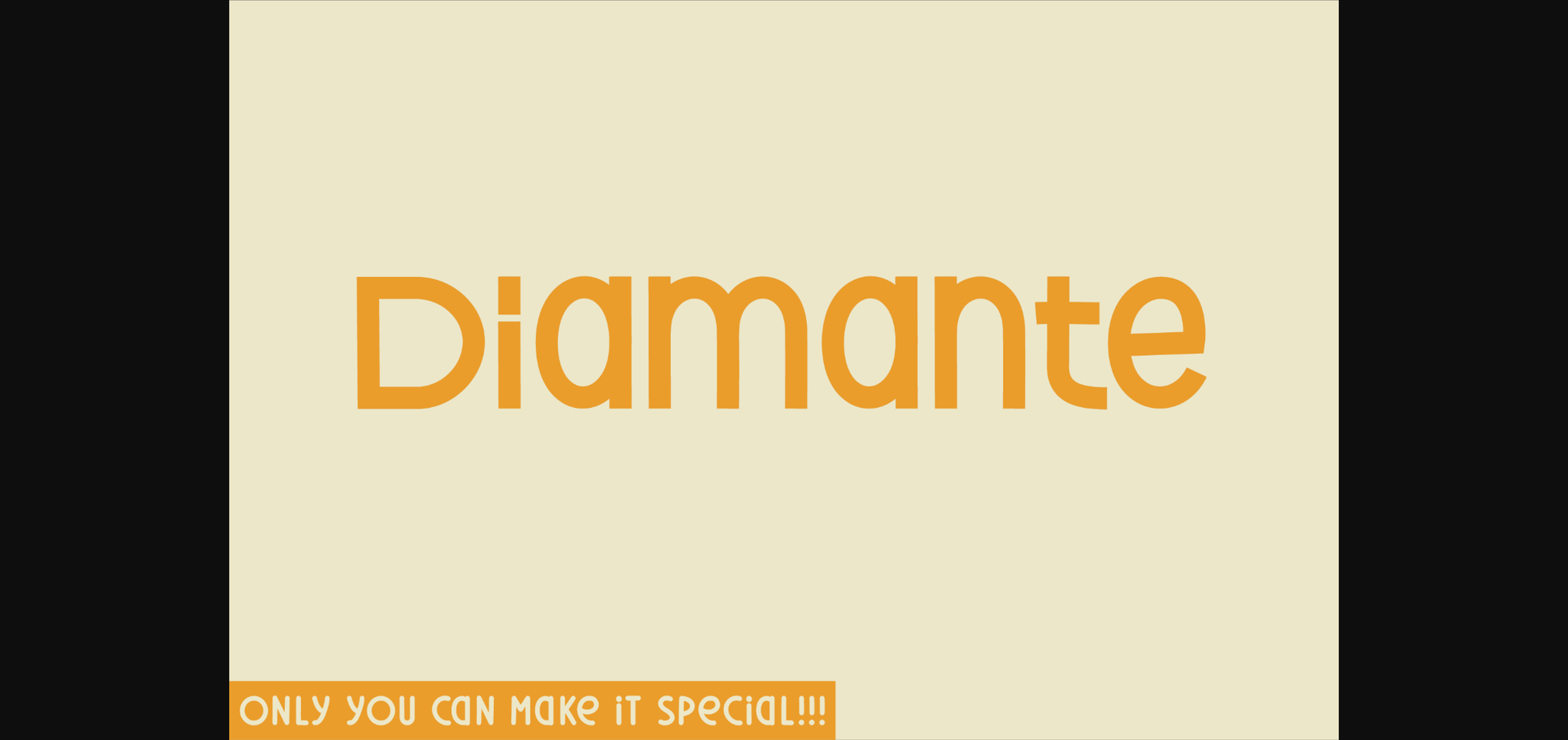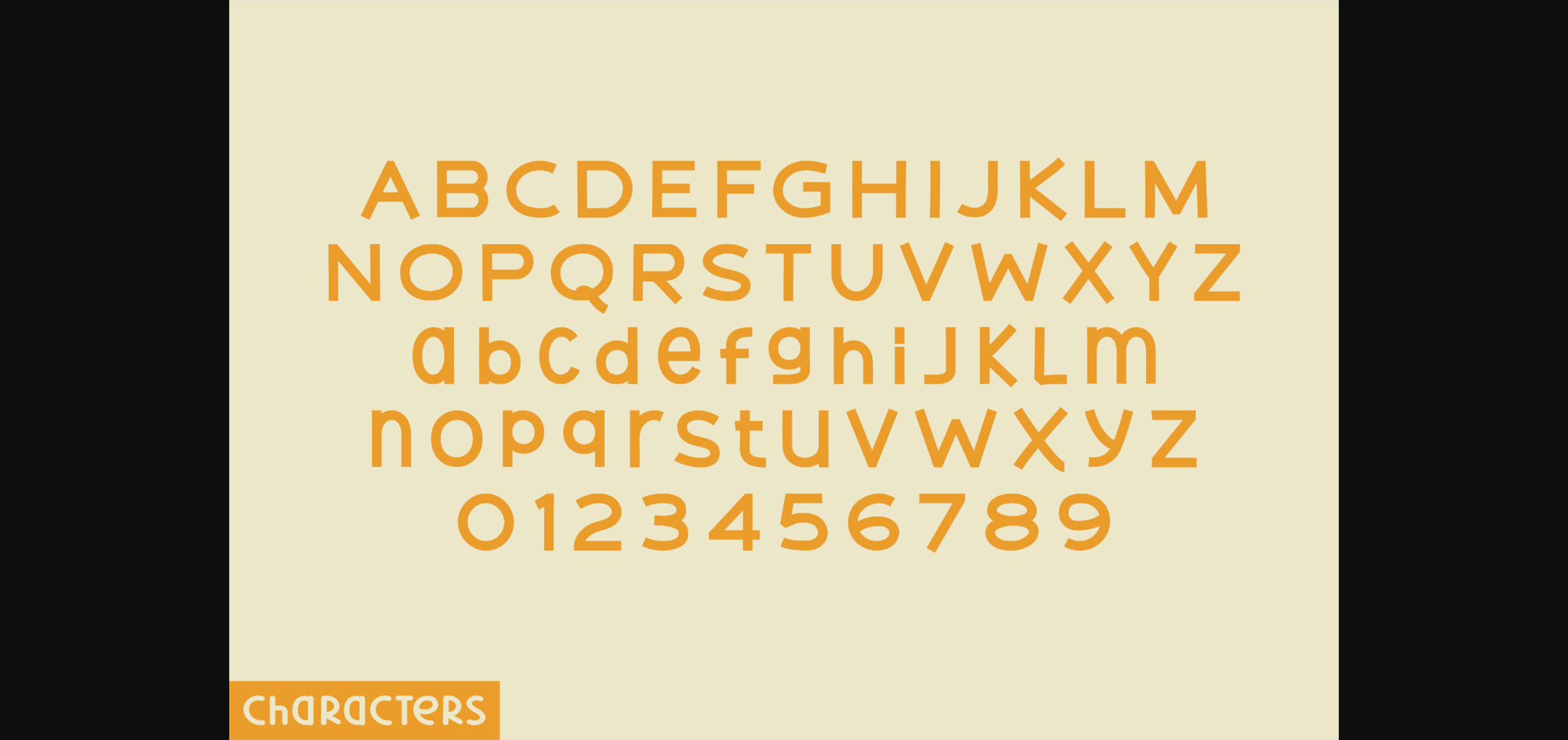
About Diamante Font
Introducing Diamante, a distinctive display font that fuses elegance with statement. Originating from the sans serif family, this typeface sets itself apart with its singular form. Each letter detailed with a regular silhouette, Diamante grants a robust yet original impression. If you’re seeking a signifier for audacious, daring, and individualistic messages, this naturally remarkable typeface emerges as the perfect choice. Crafted to superbly complement designs that speak louder, stronger, and bolder, Diamante enlivens the magic in every application.